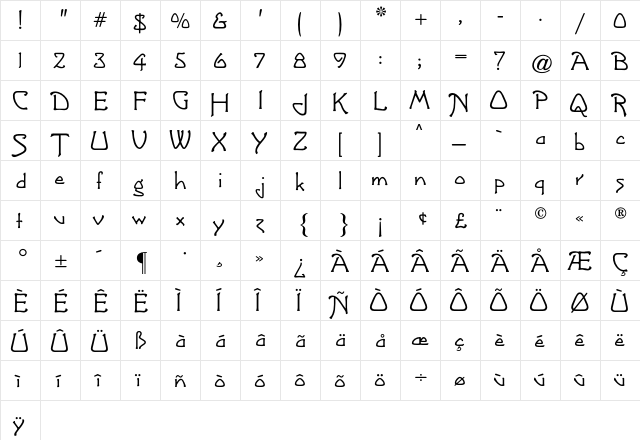
Greeting Monotone CG Regular
| Foundry | Agfa Corporation |
Design Context for Greeting Monotone CG Typeface
Greeting Monotone CG brings the precise, column-aligned rhythm of monospaced typography to designs that value technical clarity and systematic order.